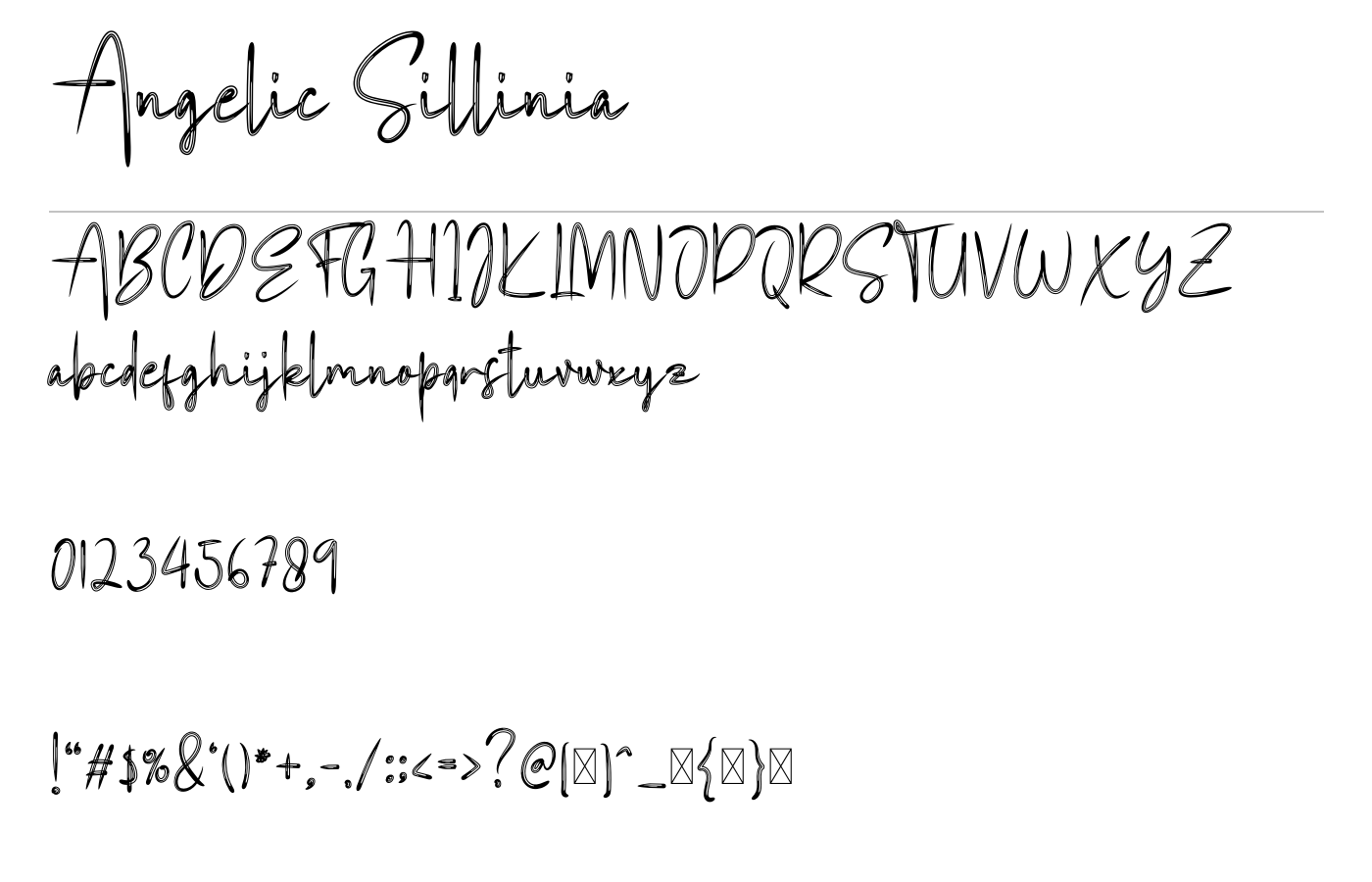
Angelic Sillinia is a delicate and stylish handwritten script font characterized by its slender, flowing lines and elegant, playful curves. It offers a light, airy feel with a high x-height and casual yet refined letterforms, making it perfect for creative projects that need a personal and sophisticated touch. This font works beautifully for branding, invitations, logos, and editorial design where a modern, artistic vibe is desired.
Angelic Sillinia Font
About Angelic Sillinia Font